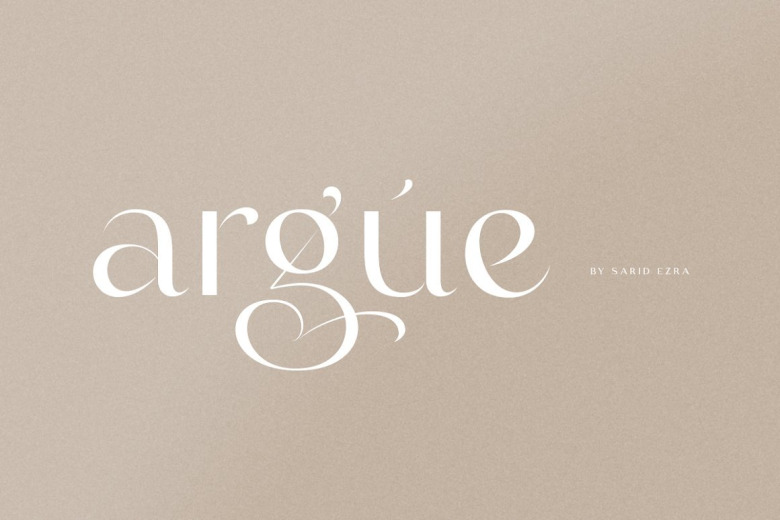
Argue Font
Argue Sans Serif Font is a beautiful and inspiring set of modern typography glyphs based on a minimal and simplistic approach to elegance. You can use this font for several purposes such as a wedding invitations or even your own branding! This fonts support Multi Language and already PUA Encoded! Also comes with beautifully crafted details that make this font more stylish.
Argue Sans Serif Font